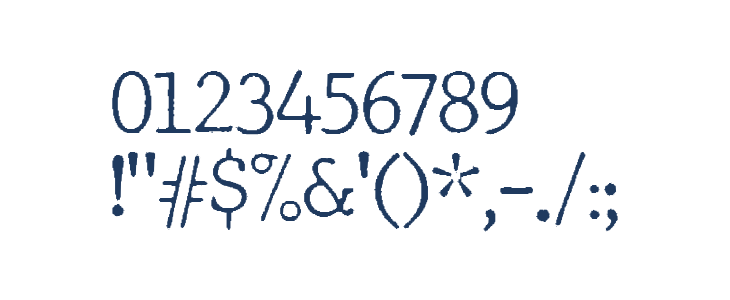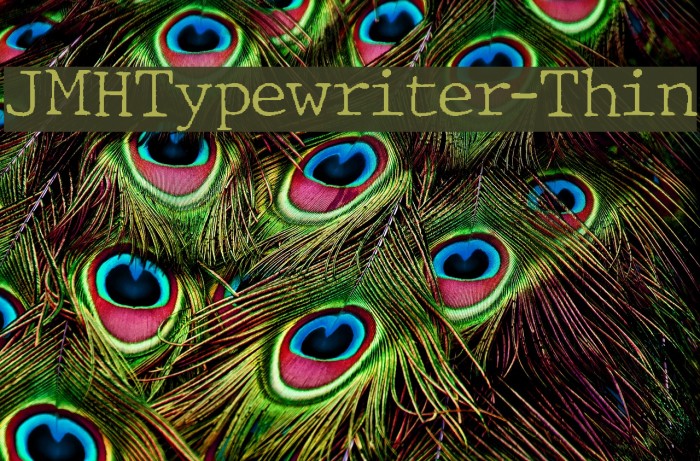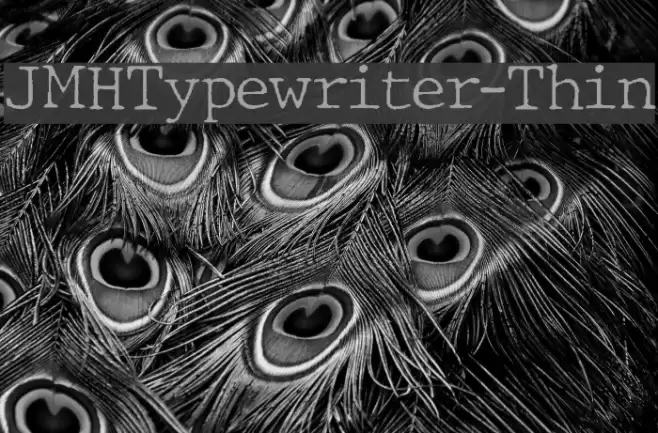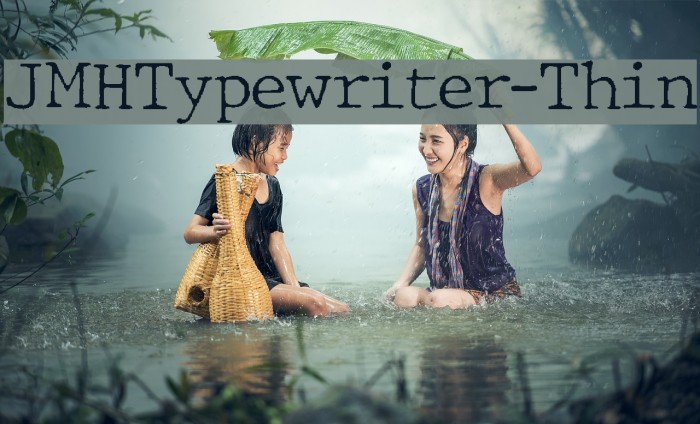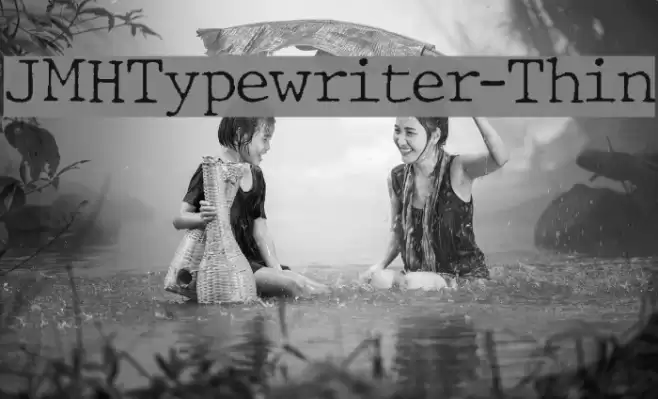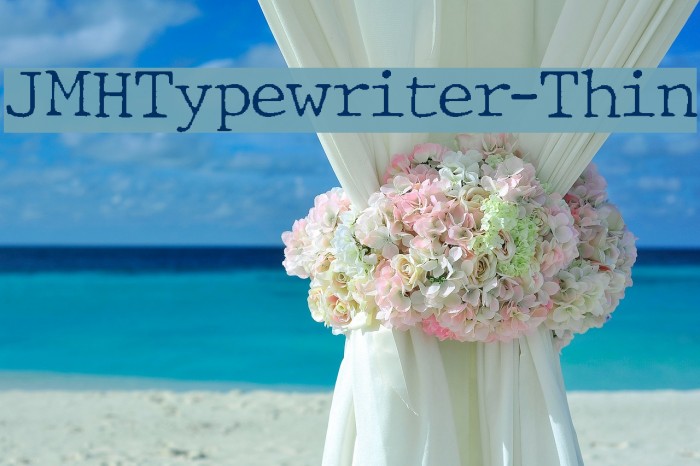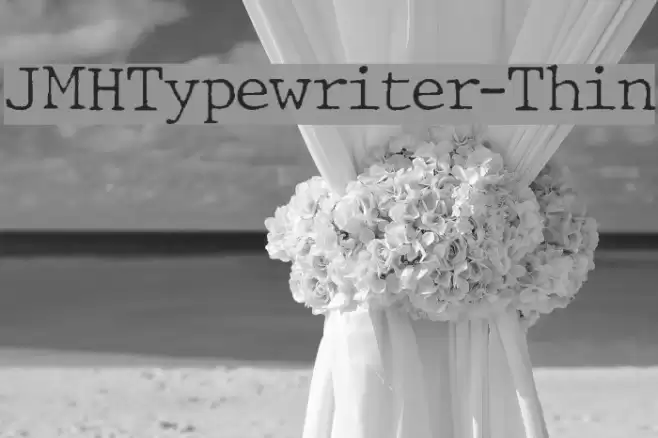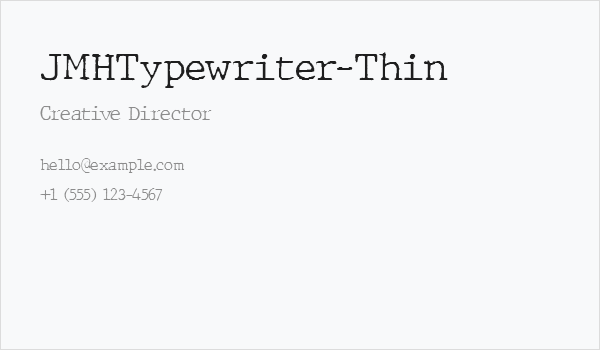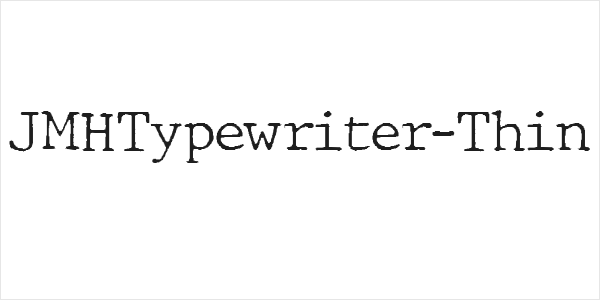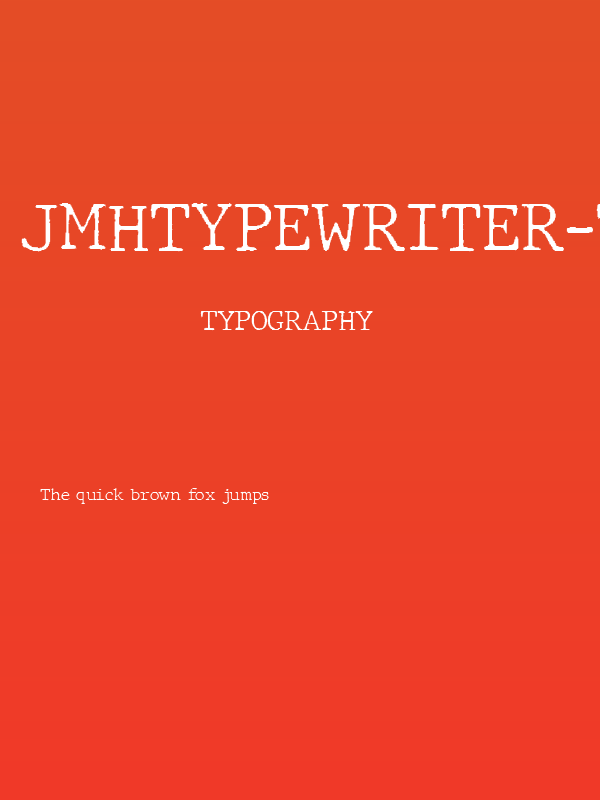
JMHTypewriter-Thin Font
JMHTypewriter-Thin Description
This typeface exudes a vintage charm reminiscent of classic typewriter fonts. The characters are monospaced, providing a uniform appearance that is both nostalgic and functional. Each letter is crafted with a thin stroke, giving it a delicate and airy feel. The uppercase letters stand tall and assertive, while the lowercase letters maintain a consistent height, enhancing readability. Numbers and special characters are designed with the same attention to detail, ensuring a cohesive look across all text. The font's simplicity and clarity make it ideal for projects that require a touch of retro elegance.
| Proposed Projects | Ideal for retro-themed designs, typewriter simulations, coding displays, and creative writing projects. |